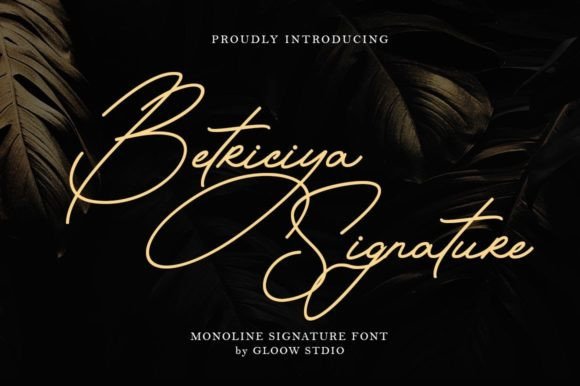
Unleash the allure of Betriciya Signature Font, a captivating script font designed to make your words dance with grace and elegance. Its flowing lines and delicate curves evoke a sense of timeless beauty, inviting your audience into a realm of refinement and sophistication.
Crafted with meticulous attention to detail, Betriciya Signature exudes an aura of artistry that is both timeless and contemporary. Each letter is a work of art, meticulously crafted to convey a message of elegance and sophistication. Whether you're creating a stunning logo, crafting a heartfelt invitation, or designing a social media post that exudes charm, Betriciya Signature is the perfect choice.
With its wide range of applications, Betriciya Signature is the ultimate font for creative expression. Use it to craft eye-catching headlines, design enchanting posters, or create captivating social media graphics that will leave a lasting impression. Its versatility extends to both digital and print media, making it the perfect choice for any project that demands a touch of elegance and grace.
Betriciya Signature is more than just a font; it's an invitation to let your creativity soar and make a statement that resonates with your audience. Its timeless beauty and universal appeal ensure that your message will be conveyed with impact and leave a lasting impression. Download Betriciya Signature today and elevate your creative projects to new heights of sophistication and allure.